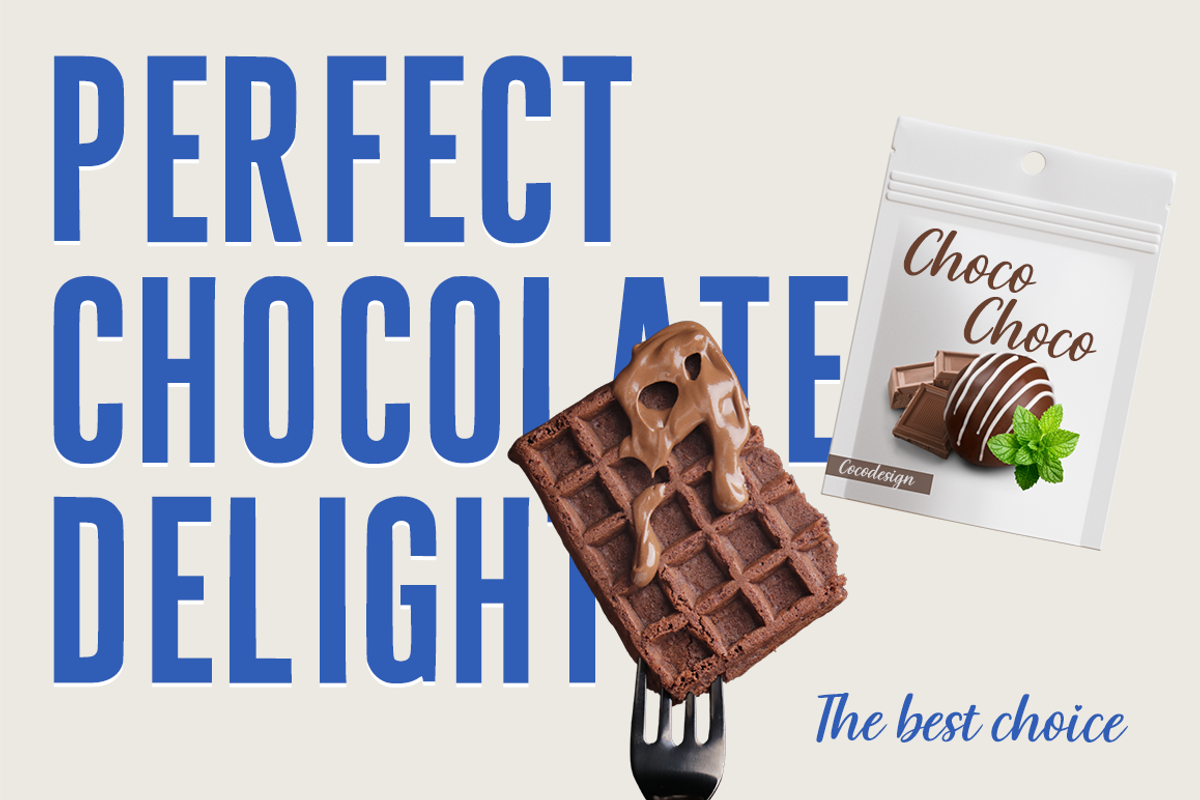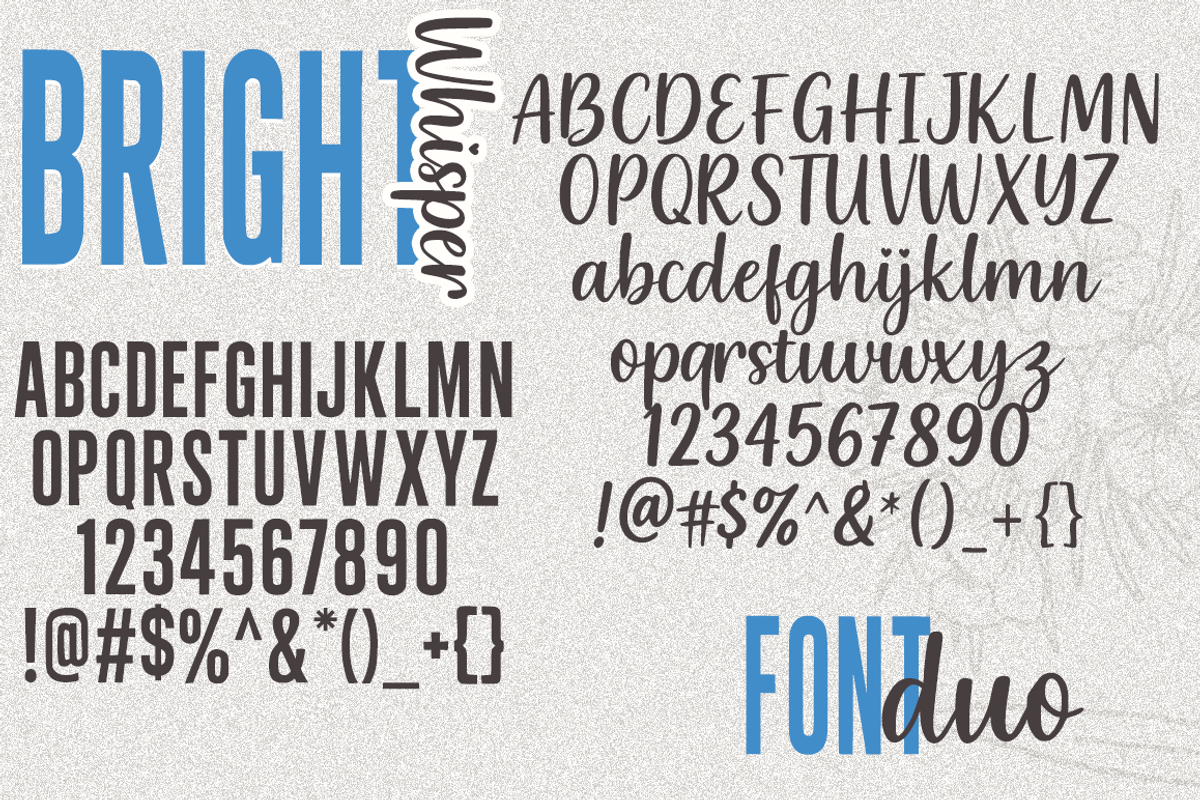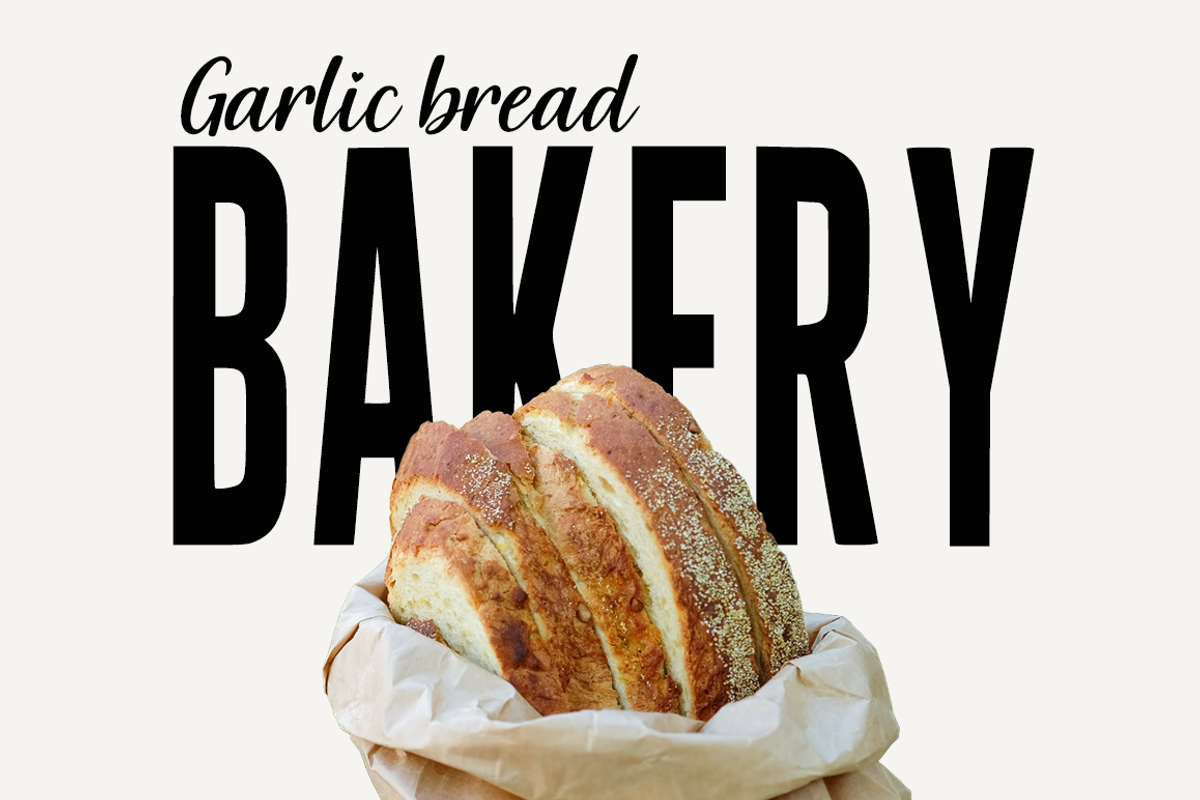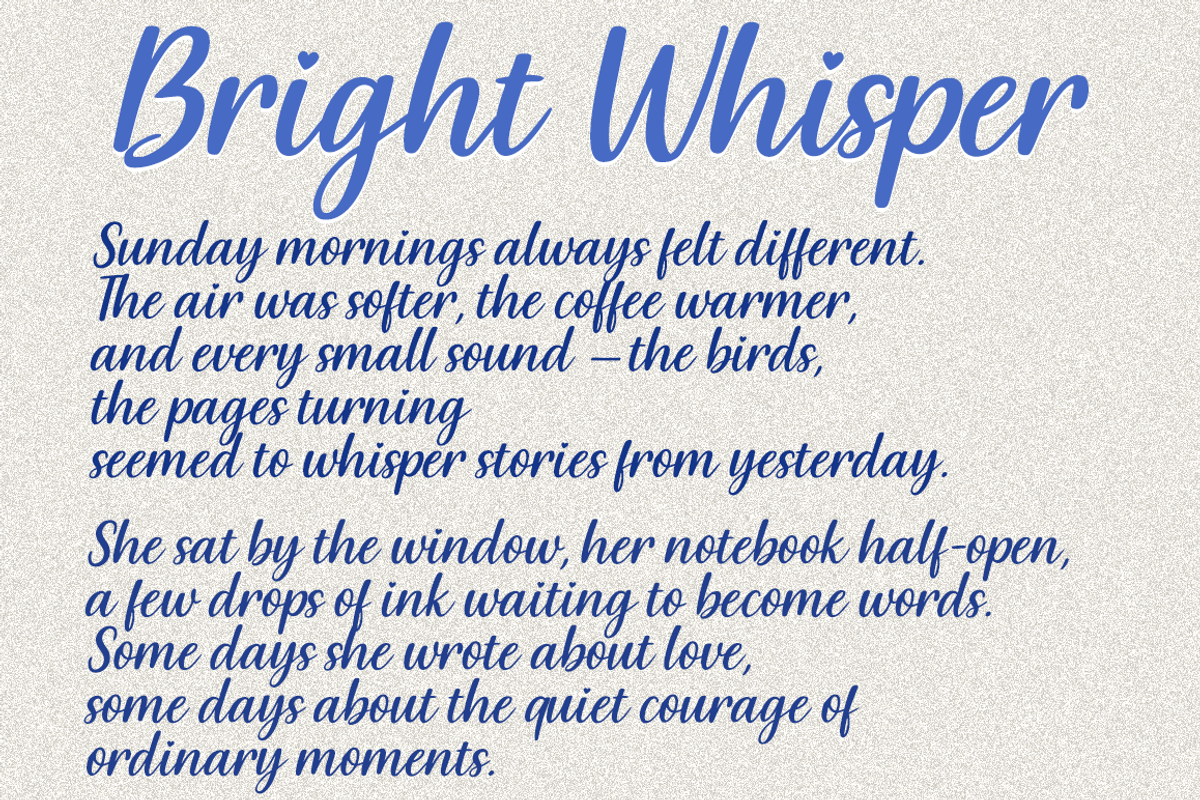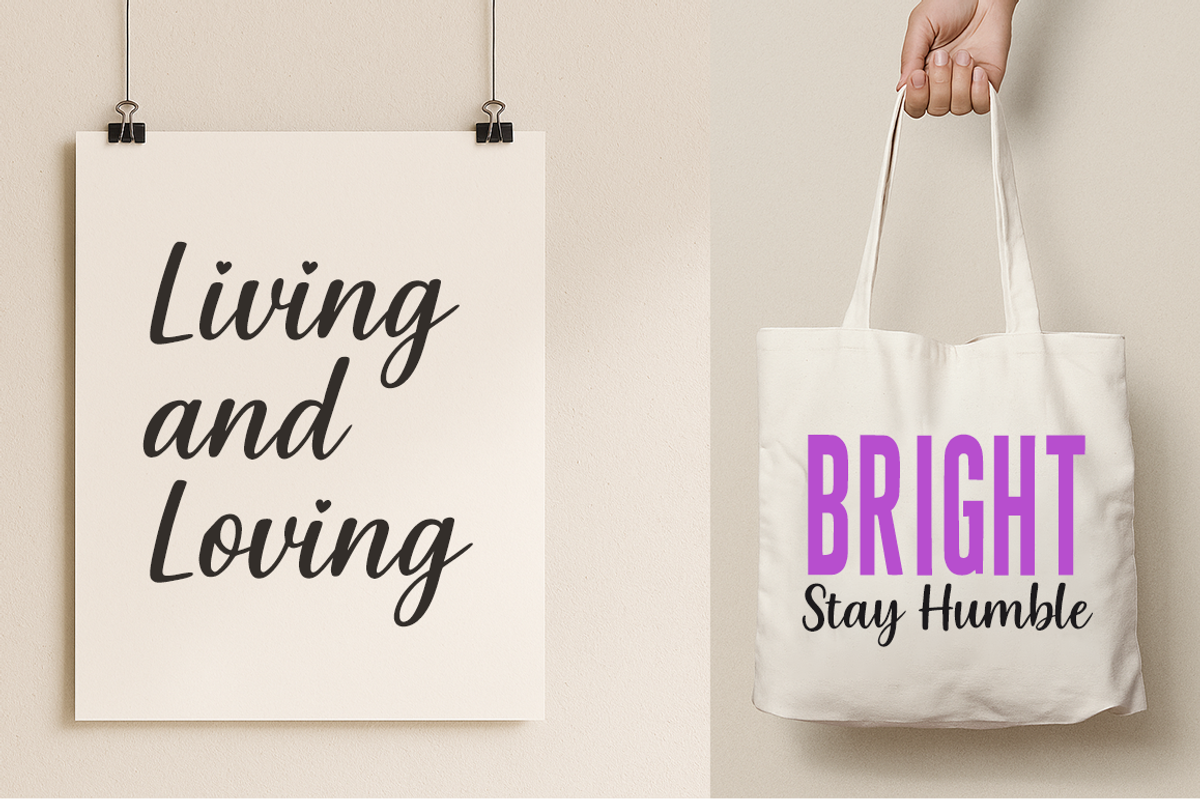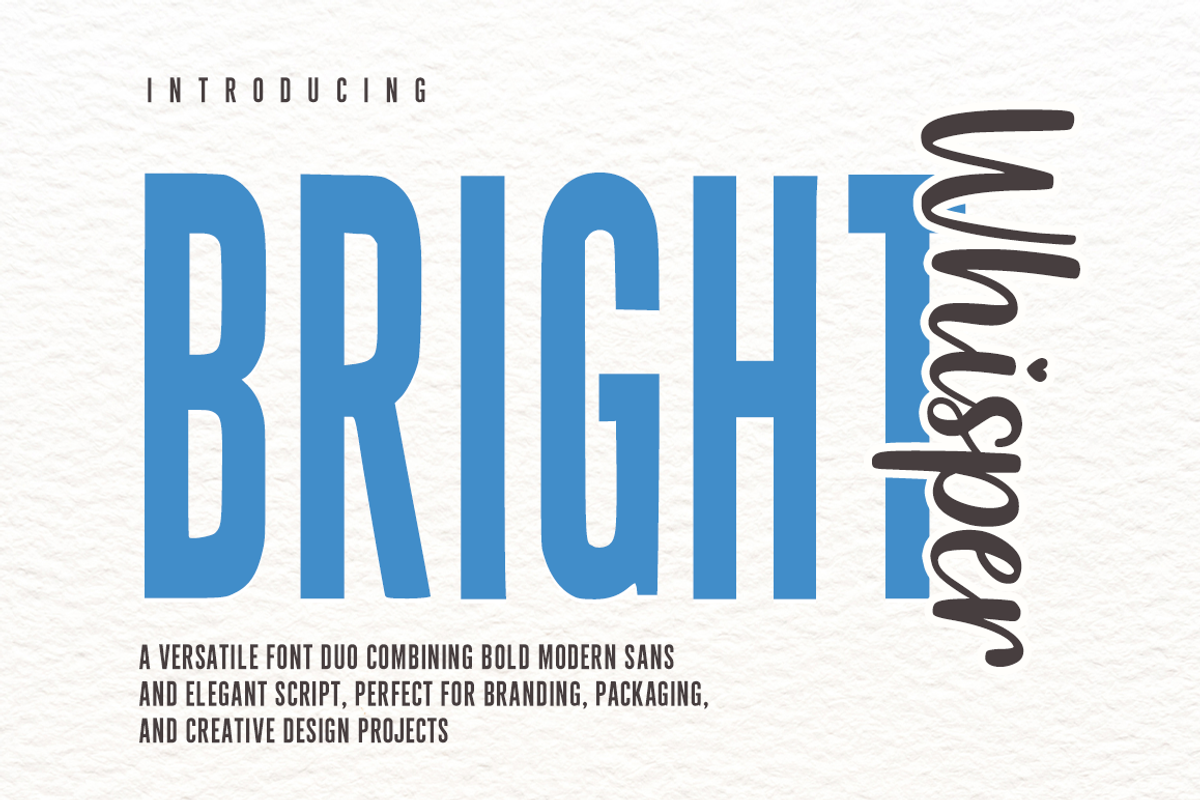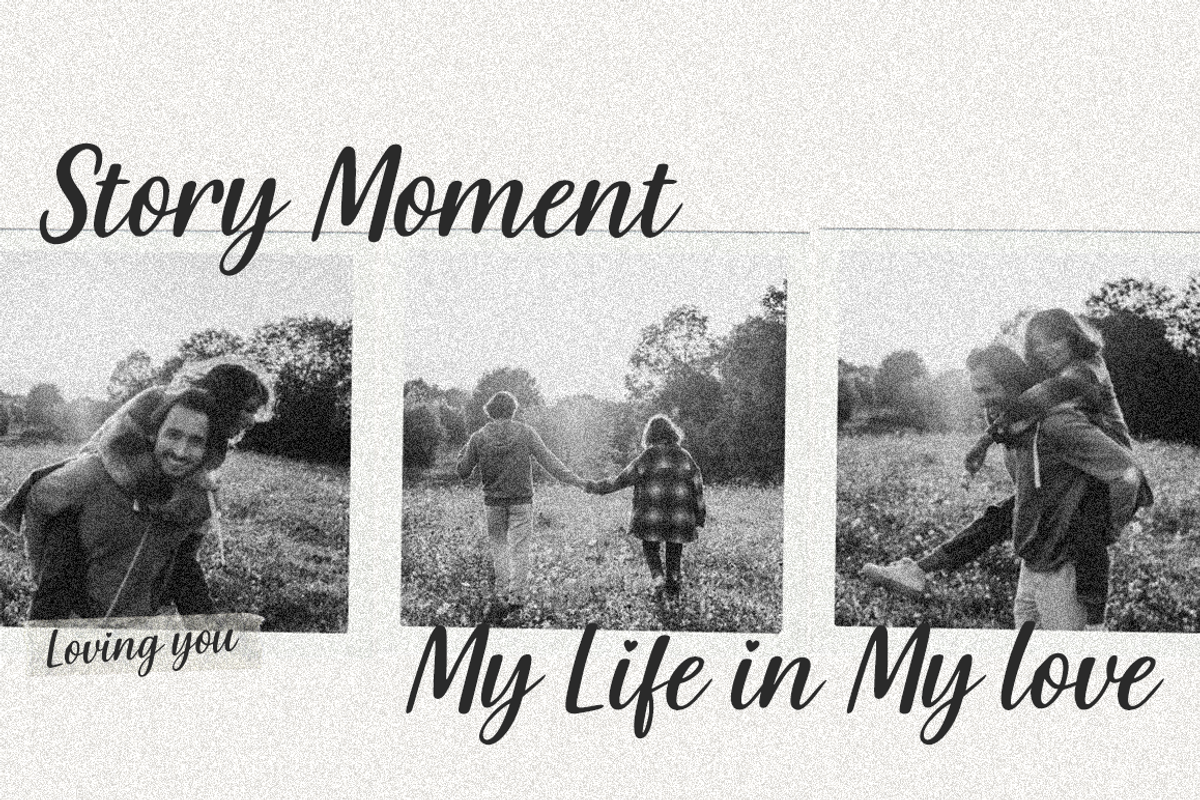
Bright Whisper Modern Font Duo Sans
Bright Whisper – A Modern Font Duo Bright Whisper is a clean and versatile font duo that combines bold modern sans with elegant handwritten script.
The combination creates a balanced contrast between strength and softness, suitable for a wide range of design applications.
✨ Features: Bright – bold, geometric sans serif Whisper – smooth, natural handwritten script Uppercase & lowercase letters Numerals, punctuation, and multilingual support Optimized spacing and clean letterforms 💡 Suitable for: Branding and logo design Packaging and label design Editorial layouts Wedding stationery and invitations Social media graphics and product display Bright Whisper offers flexibility and style, functioning well both as a pair or as standalone fonts.
A professional font duo crafted for modern, elegant, and creative design projects.